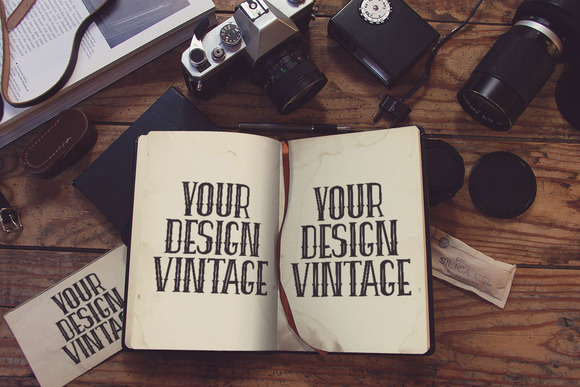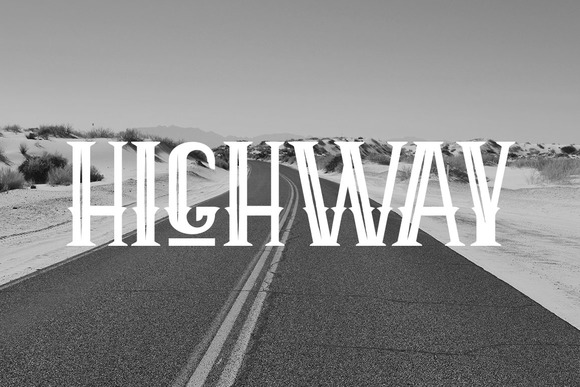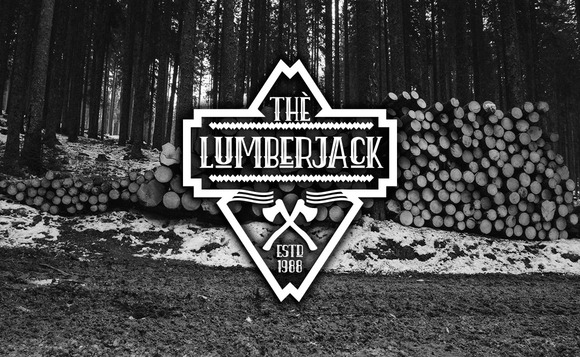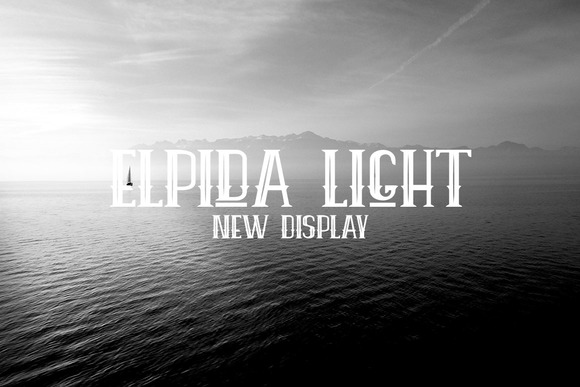
Discover the Unique Charm of Elpida Light Font
Are you a designer or crafter looking for a font that can add a touch of vintage Americana to your designs? Look no further than the Elpida Light Font. This beautiful font is part of a larger font family and is characterized by its hip and stylish aesthetic with a hint of tattoo script vibe. In this article, we’ll explore the features and benefits of the Elpida Light Font and how it can elevate your designs.
What is Elpida Light Font?
Elpida Light Font is a light style font that is part of the Elpida font family. It is designed to be a stylish and modern font with a unique twist. The font has a tattoo script vibe that gives it a distinctive look and feel. The Elpida Light Font is perfect for designers and crafters who want to add a touch of vintage Americana to their designs.
Key Features of Elpida Light Font
The Elpida Light Font has several key features that make it a great choice for designers and crafters. Some of its key features include:
- Unique Style: The Elpida Light Font has a unique style that is both hip and stylish. Its tattoo script vibe gives it a distinctive look and feel that sets it apart from other fonts.
- Vintage Americana Feel: The font has a vintage Americana feel that makes it perfect for designs that require a touch of nostalgia.
- Legibility: The Elpida Light Font is highly legible, making it perfect for use in a variety of design applications, from signage to digital media.
- Versatility: The font is highly versatile and can be used in a variety of design applications, from logos and branding to packaging and advertising.
Benefits of Using Elpida Light Font
The Elpida Light Font offers several benefits to designers and crafters. Some of its benefits include:
- Adds a Touch of Vintage Americana: The font adds a touch of vintage Americana to designs, making it perfect for designers and crafters who want to create designs with a nostalgic feel.
- Enhances Creativity: The Elpida Light Font’s unique style and versatility make it a great choice for designers and crafters who want to enhance their creativity.
- Perfect for a Variety of Design Applications: The font is perfect for use in a variety of design applications, from logos and branding to packaging and advertising.
How to Use Elpida Light Font in Your Designs
Using the Elpida Light Font in your designs is easy. Here are a few tips to get you started:
- Pair it with Other Fonts: The Elpida Light Font pairs well with other fonts, making it perfect for use in combination with other typefaces.
- Use it for Headings and Titles: The font is perfect for use in headings and titles, where its unique style and vintage Americana feel can really shine.
- Experiment with Different Colors: The Elpida Light Font looks great in a variety of colors, so don’t be afraid to experiment and find the perfect color for your design.
| Font Name | Elpida Light Font |
| Author | Ijem RockArt |
The Elpida Light Font is a unique and stylish font that is perfect for designers and crafters who want to add a touch of vintage Americana to their designs. Its hip and stylish aesthetic, combined with its tattoo script vibe, make it a great choice for a variety of design applications. With its high legibility and versatility, the Elpida Light Font is a great addition to any designer’s or crafter’s toolkit.
Whether you’re designing a logo, creating a sign, or crafting a digital media project, the Elpida Light Font is a great choice. So why not give it a try and see how it can enhance your designs?